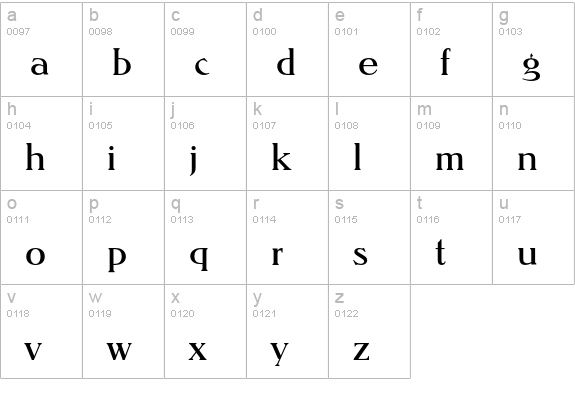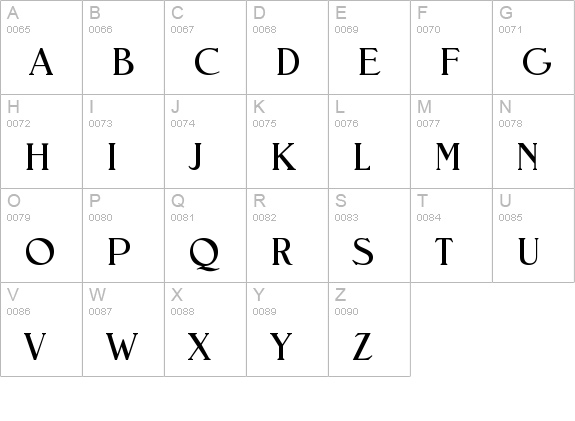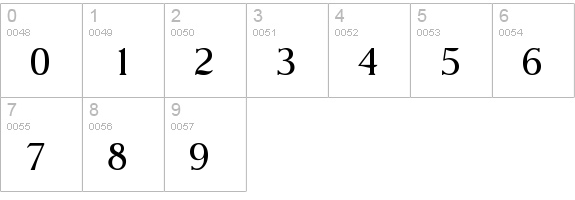
NevadaEF-Regular is the standard, neutral variant in the NevadaEF typeface family \xE2\x80\x94 well suited to general body text, paragraphs, and standard typographic work.
NevadaEF-Regular font is a versatile and modern typeface that is perfect for a variety of design projects. Its clean lines and sleek appearance make it a great choice for both digital and print applications. Whether you're designing a website, creating a logo, or working on a brochure, NevadaEF-Regular font will add a touch of sophistication to your work. What makes NevadaEF-Regular font even better is that it is available for free download at FontsMarket.com. This means you can easily access this high-quality font without any cost, making it a valuable addition to your font library. Don't miss out on the opportunity to enhance your designs with NevadaEF-Regular font today!